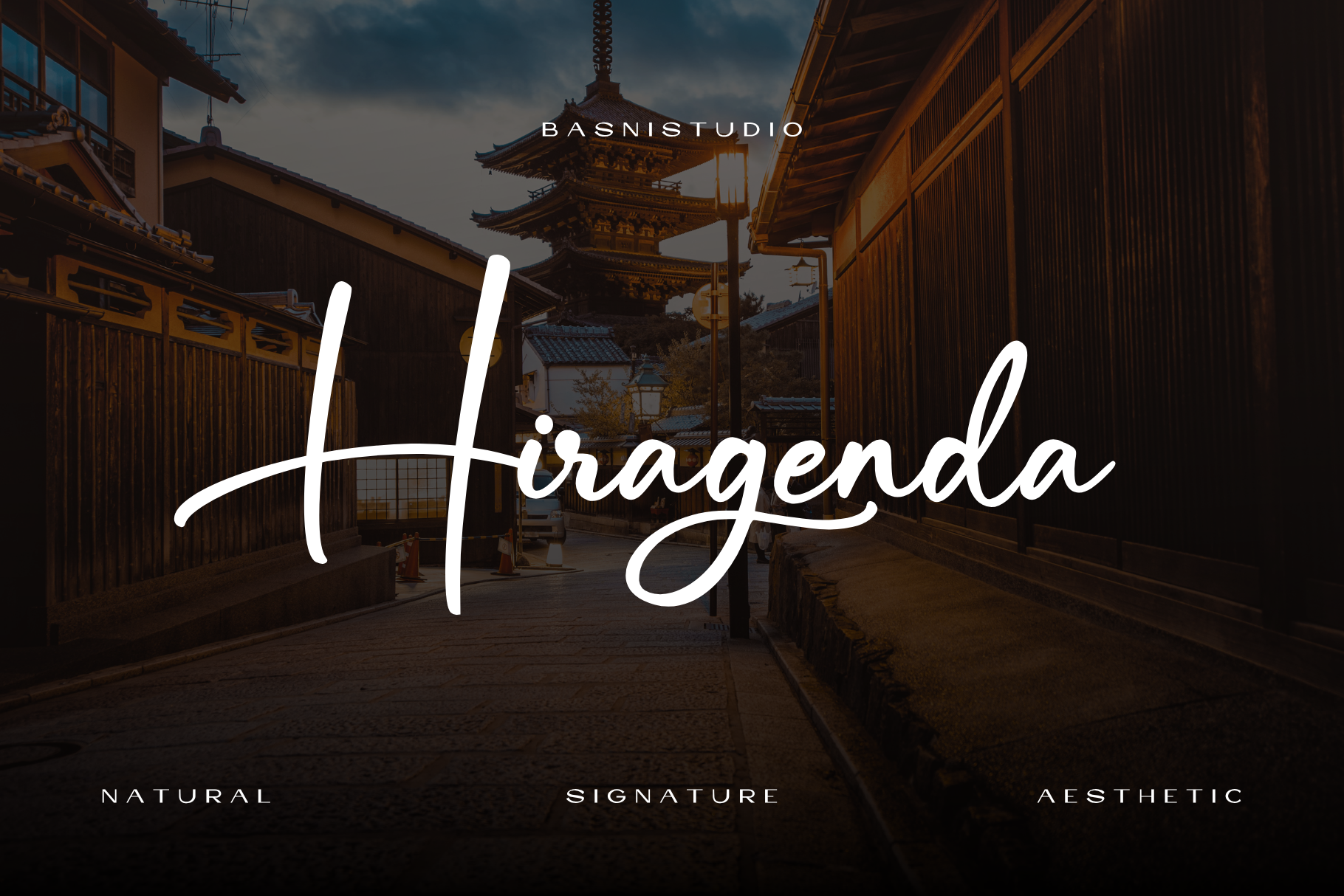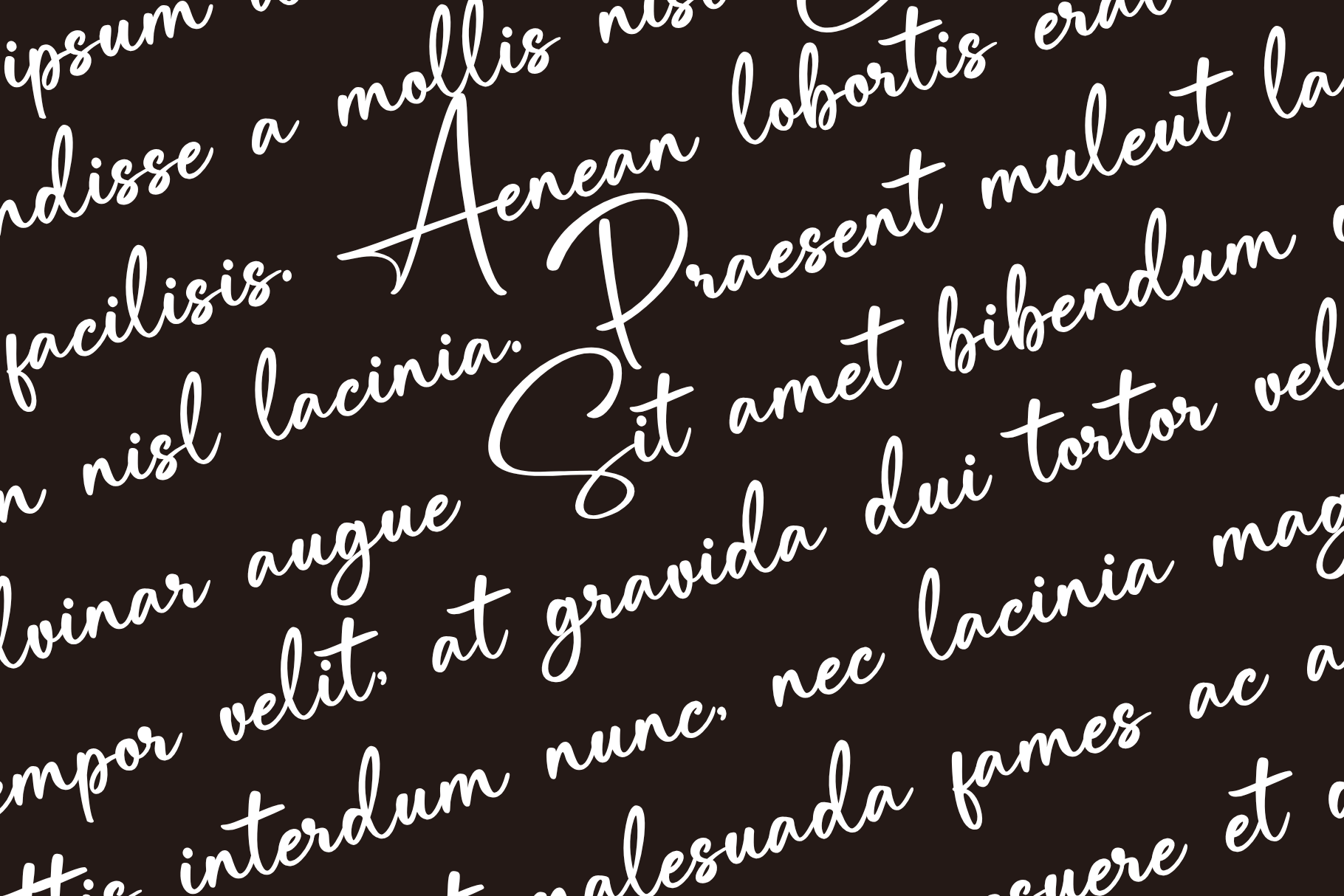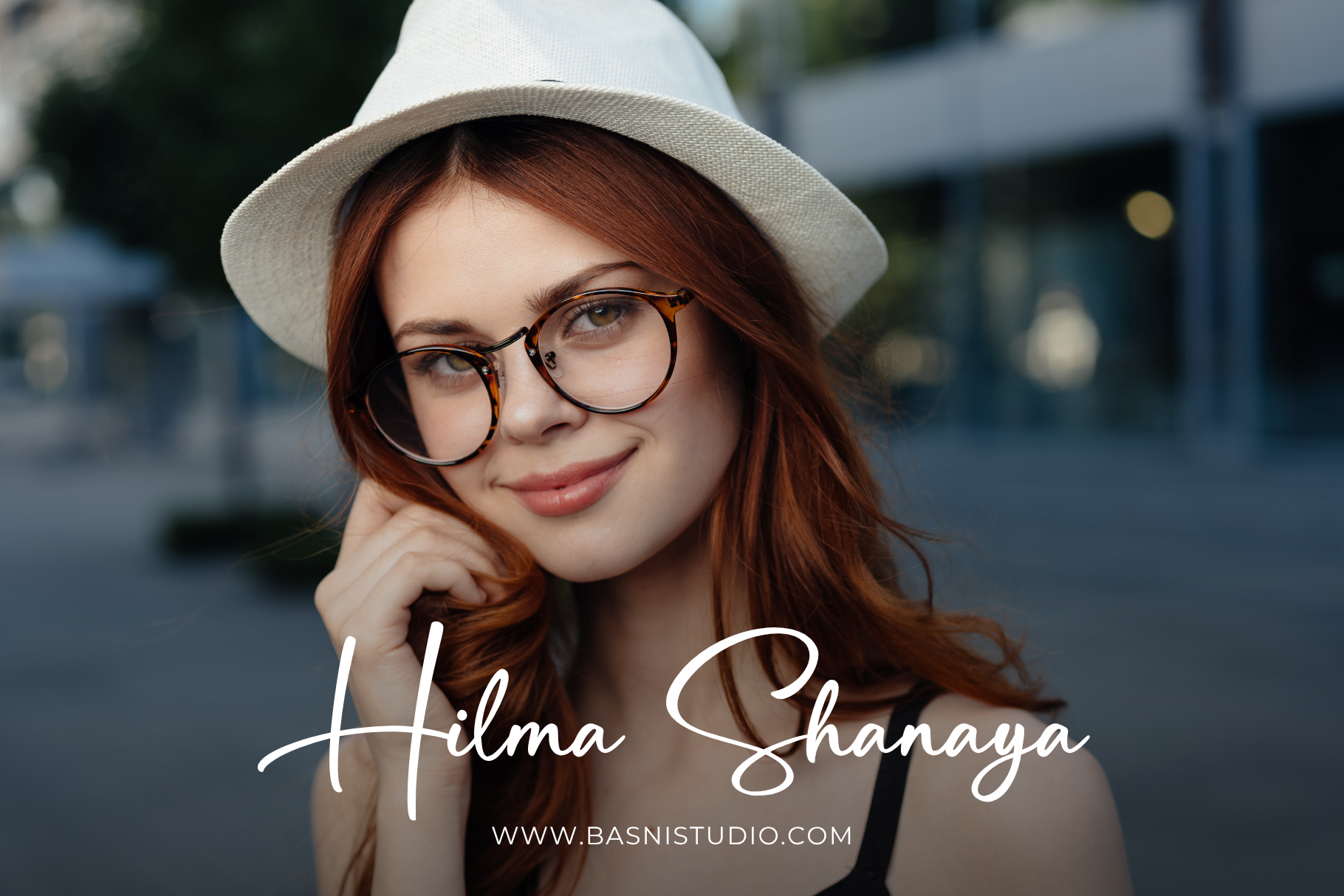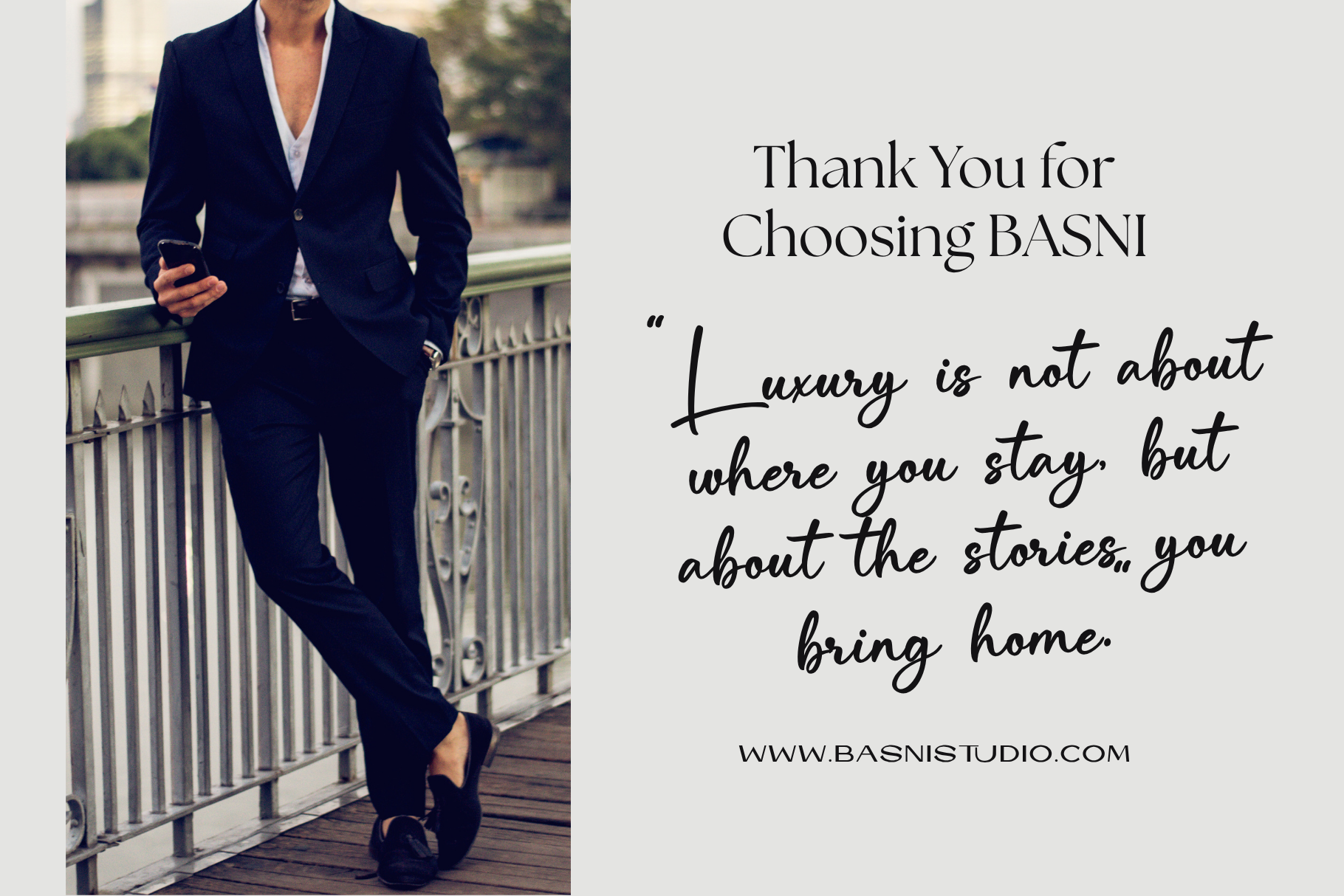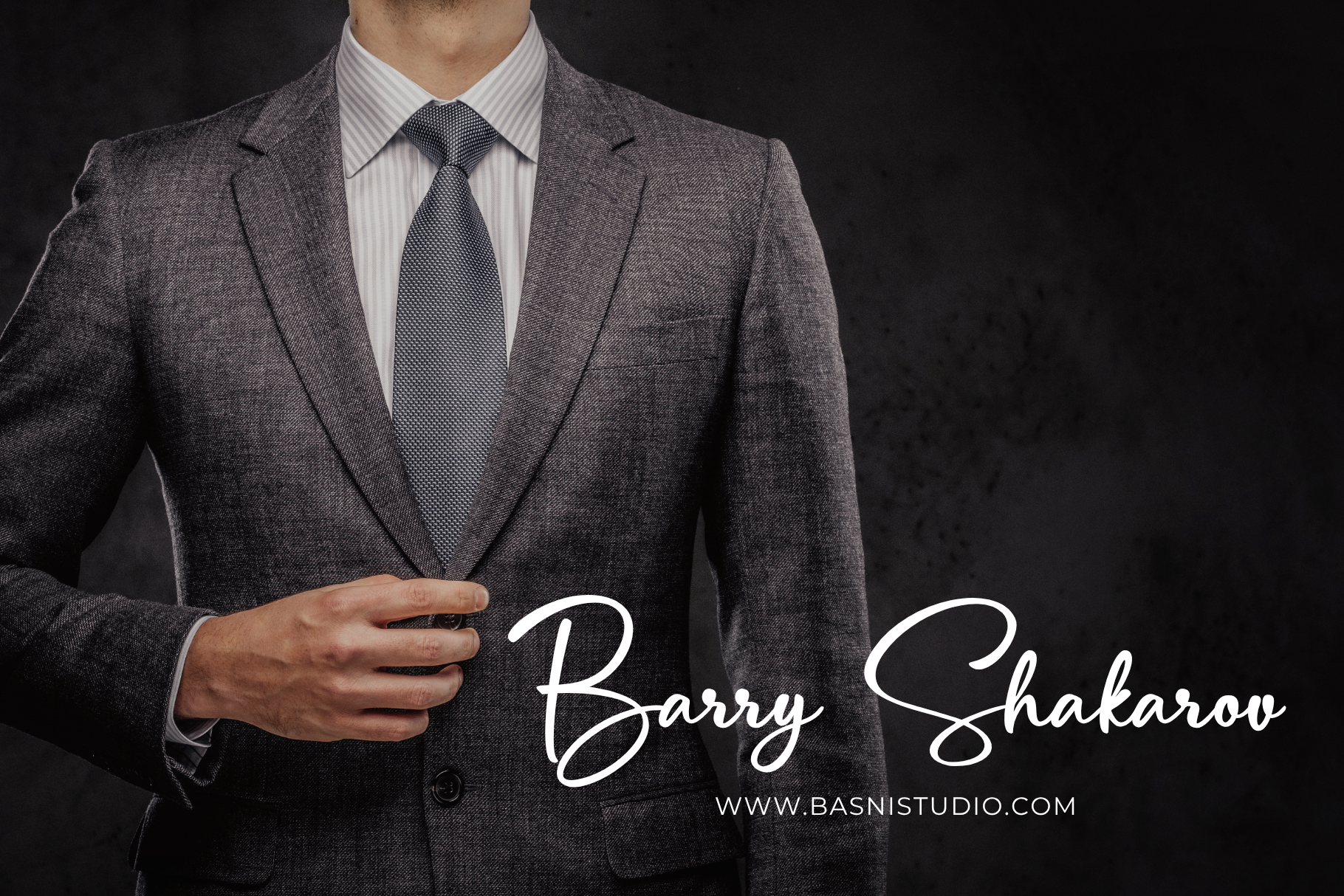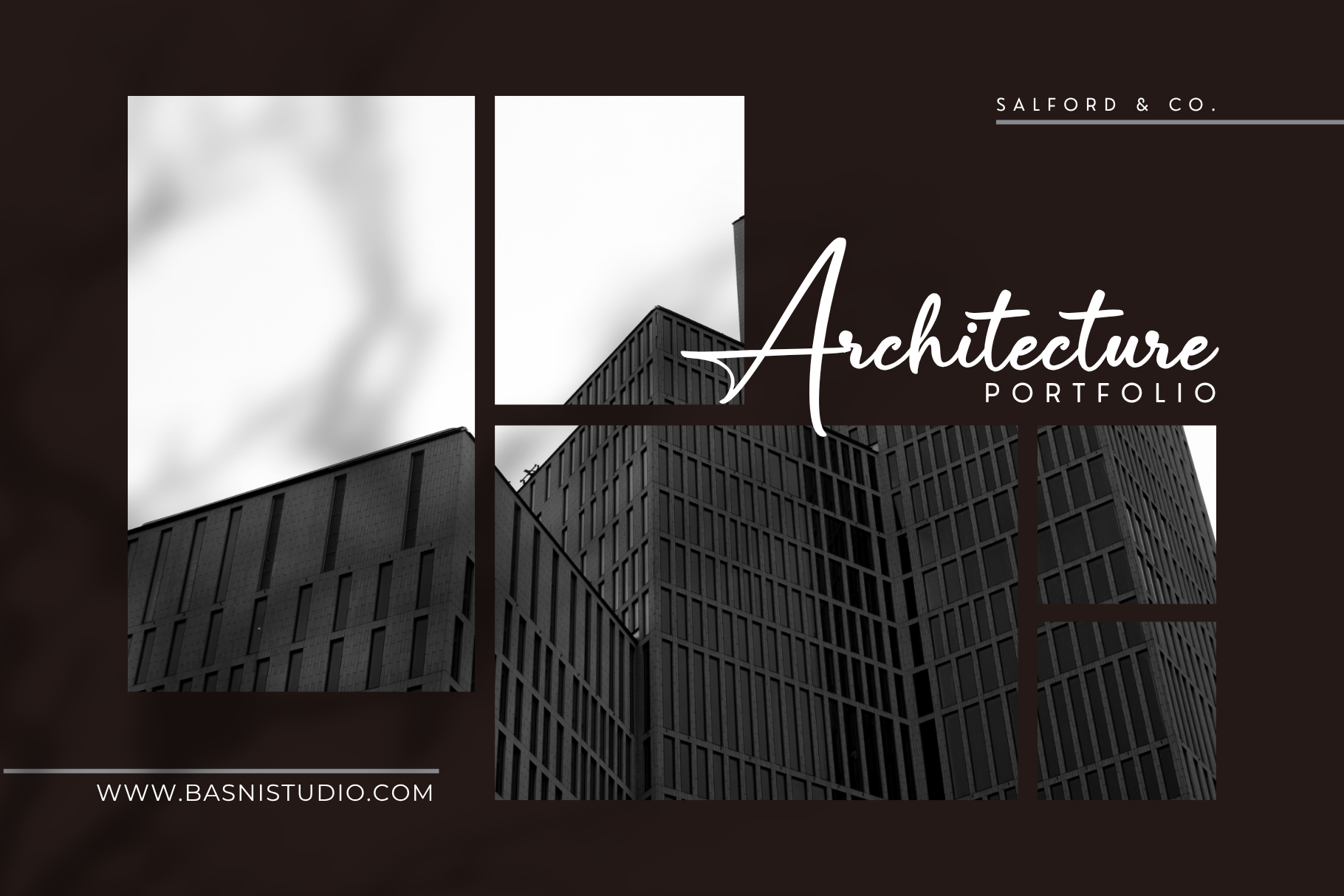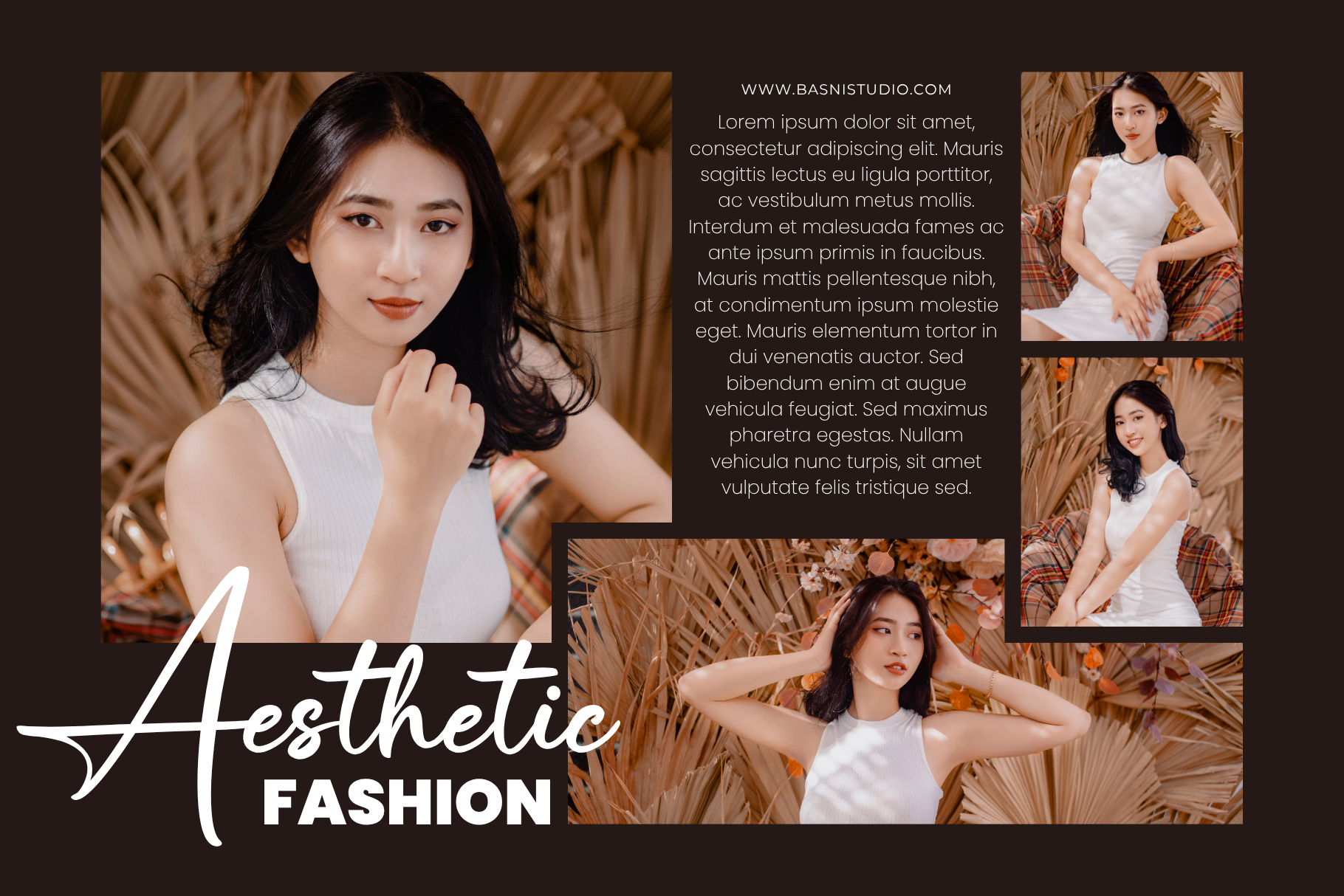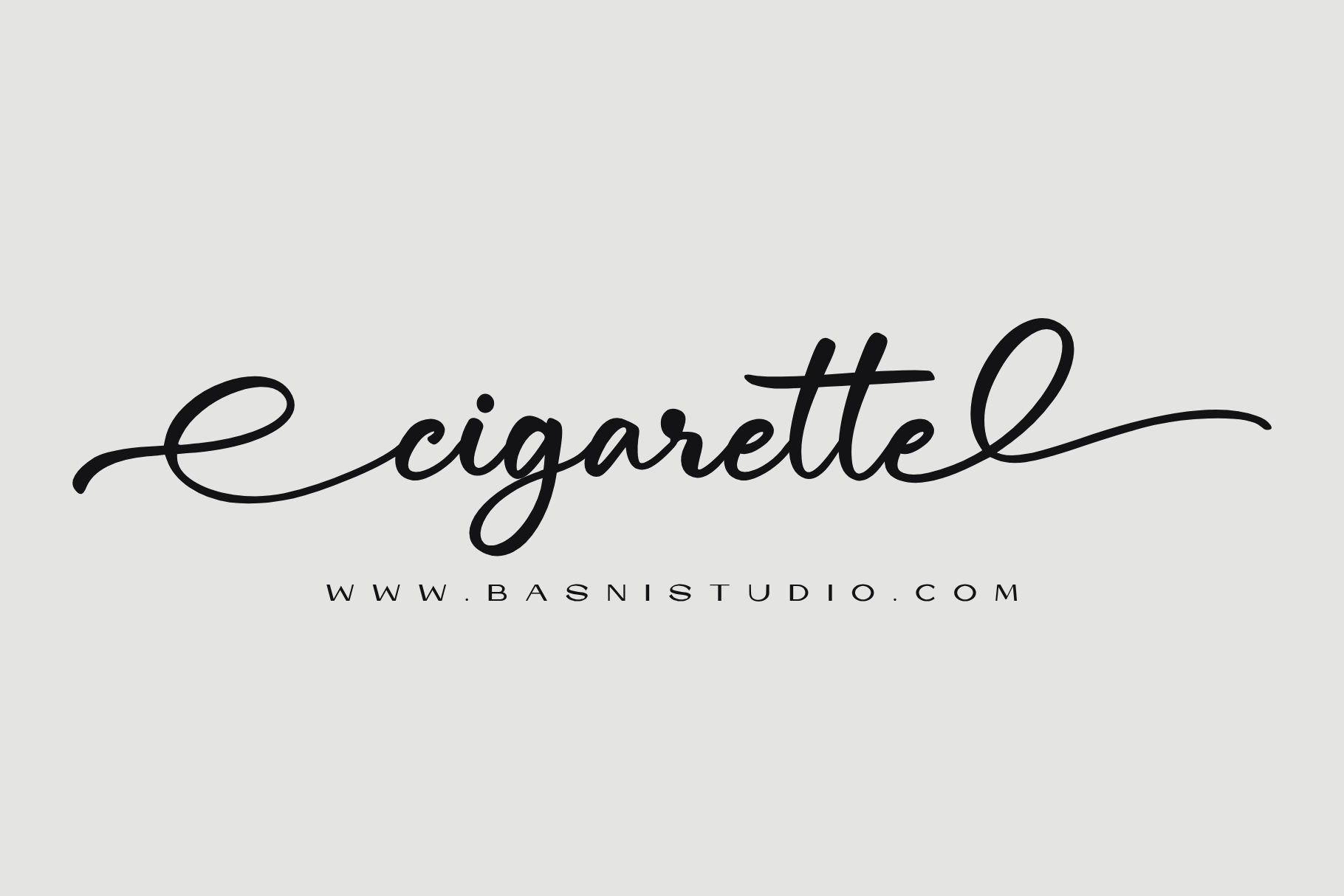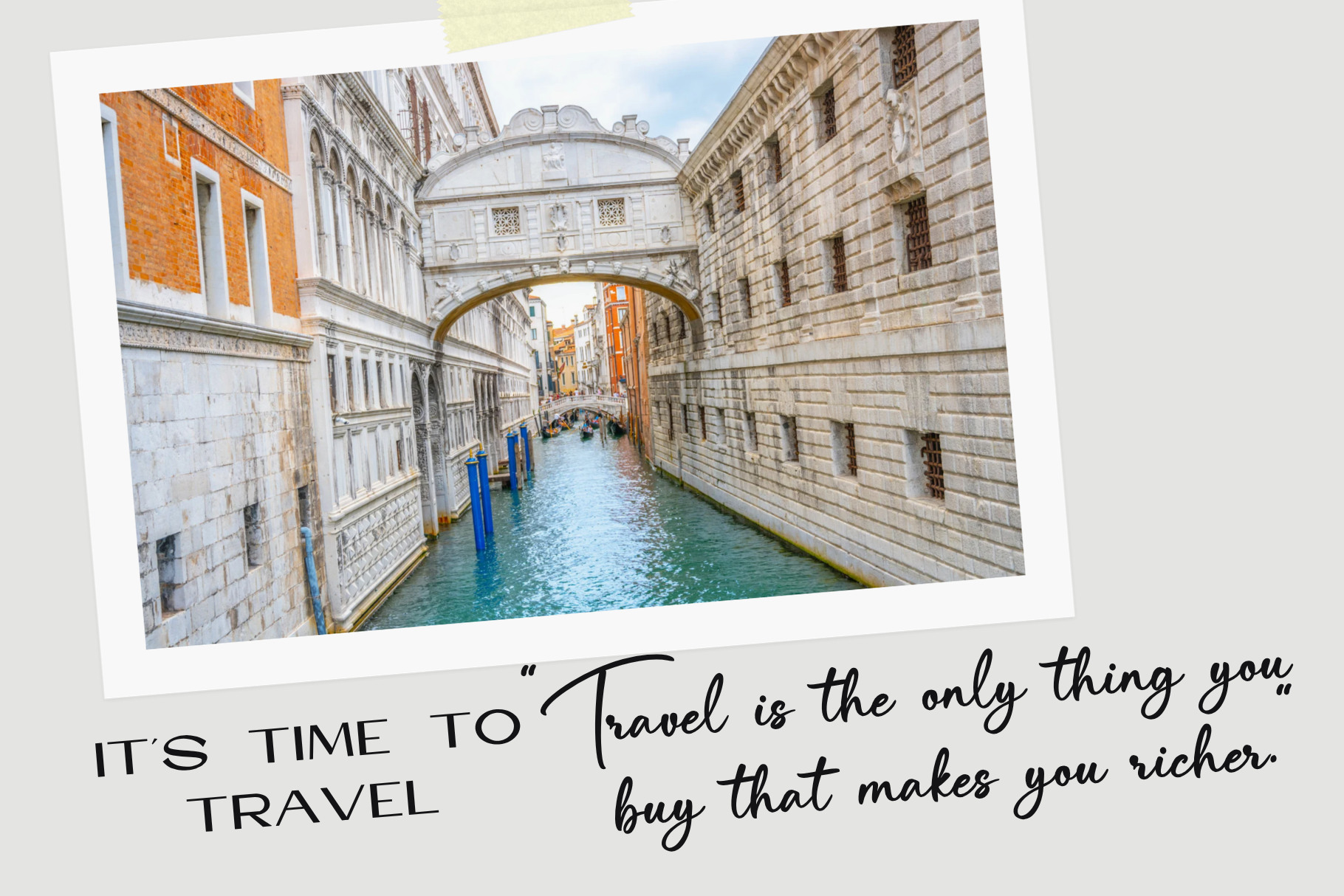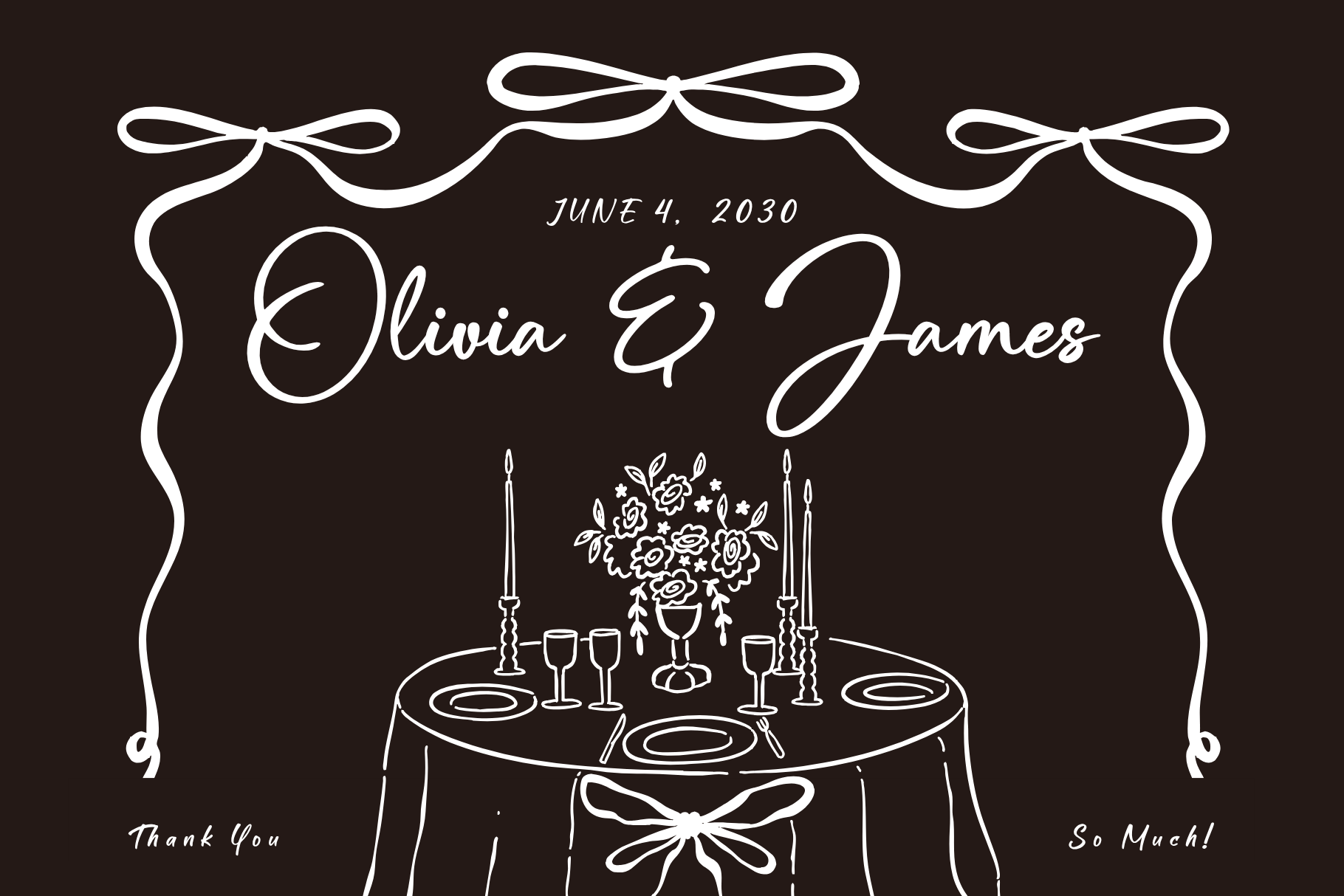
Hiragenda – Signature Font
Hiragenda Signature Font Created with real pen strokes for a natural look and casual touch to everything from branding and social media to invitations and packaging.
Natural – Perfect for tagline, quotes, greeting cards, and more
Authentic Handwritten Feel – Created with real pen strokes for a natural look
Whether you’re building a powerful brand identity or crafting a standout design,
Hiragenda Signature Font Created with real pen strokes for a natural look gives you the creative edge you need.
- Uppercase & lowercase letters
- Swashes
- ligatures
- Numbers & punctuation